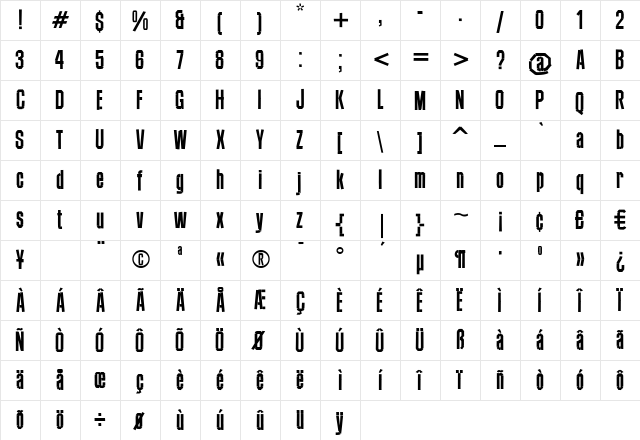
Red Tape Condensed Regular
Foundry: Gert Wiescher, Wiescher-Design, Munich, Germany, www.wiescher-design.de
Complete Red Tape Condensed Regular glyph index. Displaying only characters natively supported by Red Tape Condensed Regular font.
Design Context for Red Tape Condensed
Red Tape Condensed is a composed and adaptable typeface that performs quietly and consistently across a wide range of design contexts. Its narrow stance lets it pack a punch even in space-constrained designs.
Pro Tip: Use Red Tape Condensed in both headline and body roles to test its range before committing to a single application.
Who designed the Red Tape Condensed Regular font?